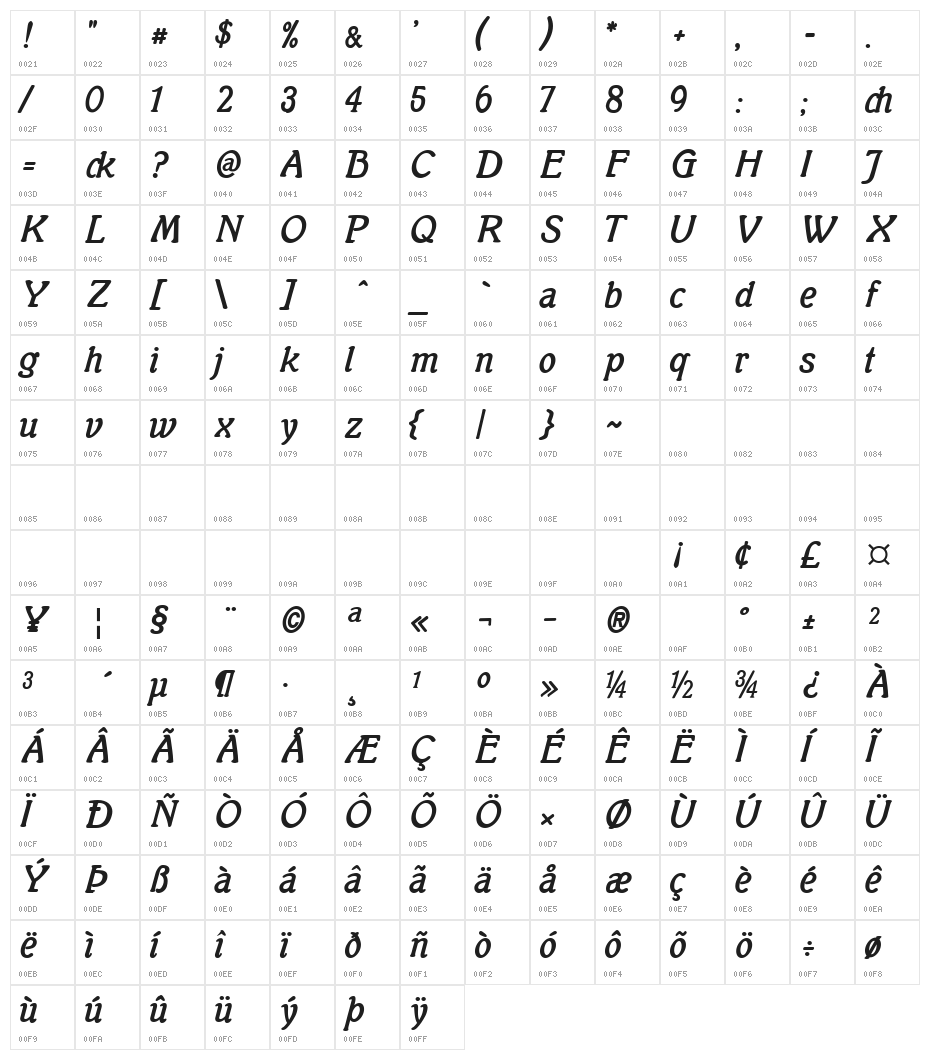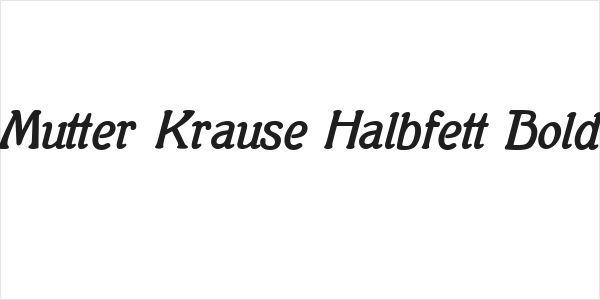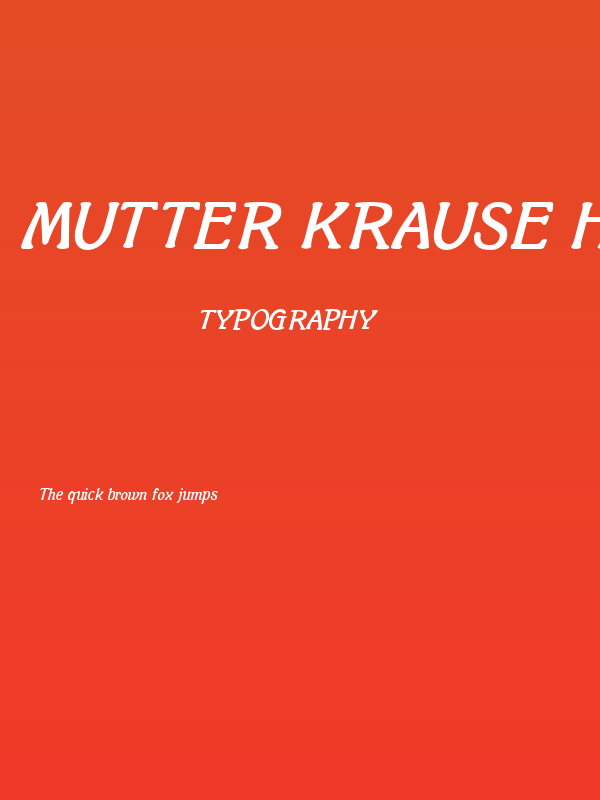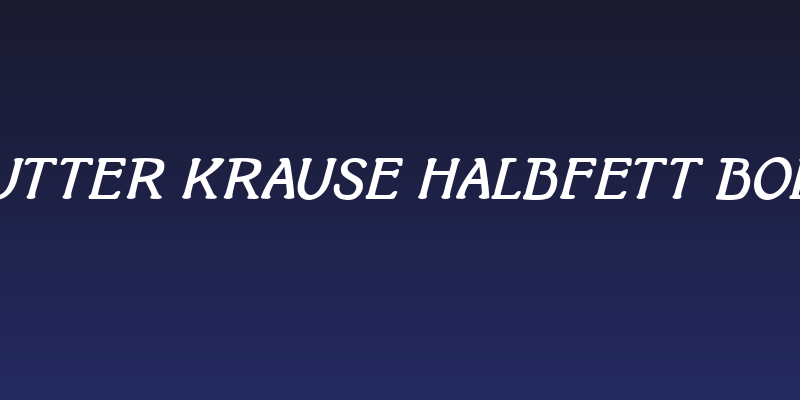
Mutter Krause Halbfett Bold Font
Mutter Krause Halbfett Bold Description
This font features a bold and slightly italicized style, characterized by its smooth curves and elegant serifs. The uppercase letters are well-proportioned, with a slight slant that adds a dynamic feel. The lowercase letters maintain a consistent flow, enhancing readability while retaining a classic touch. Numbers are clear and distinct, with rounded edges that complement the overall aesthetic. Special characters are thoughtfully designed, ensuring they blend seamlessly with the alphabetic characters. This font exudes a sense of sophistication and timelessness, making it suitable for a variety of design applications.
| Use Case | Headlines, Logos, Editorial design |
| Proposed Projects | Ideal for branding, editorial design, book covers, and elegant invitations. |